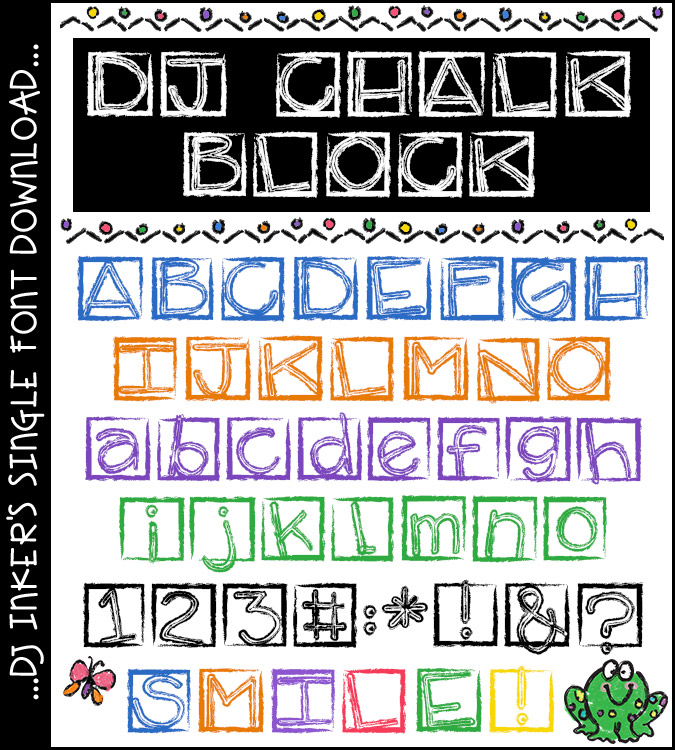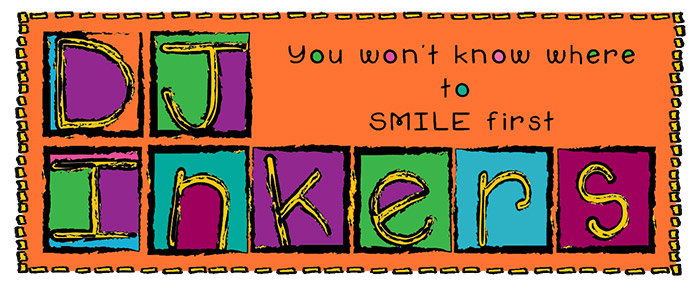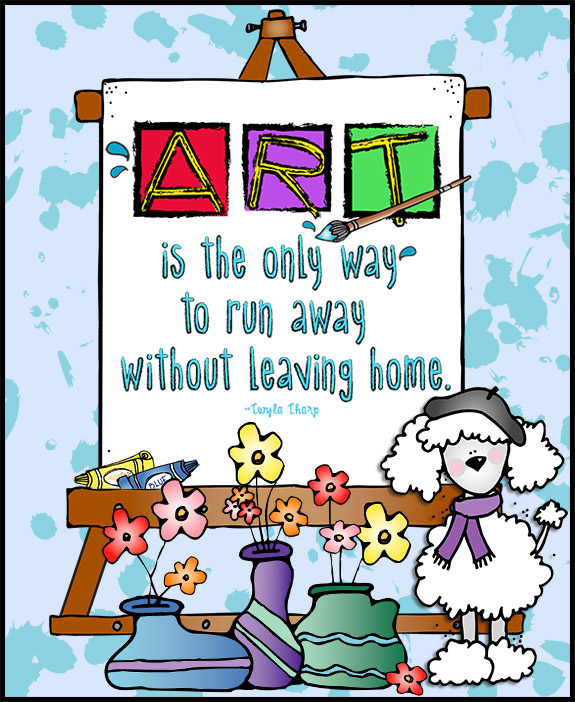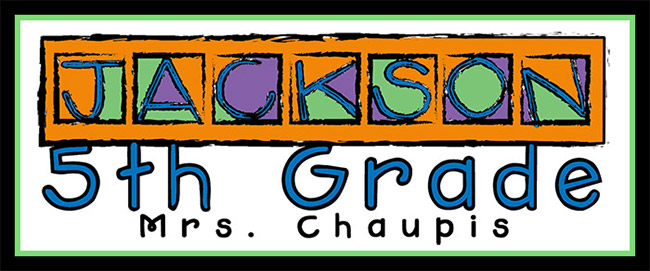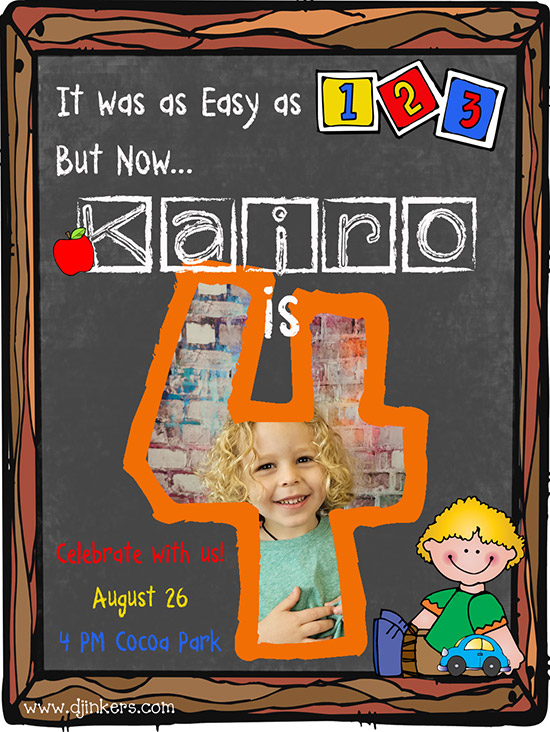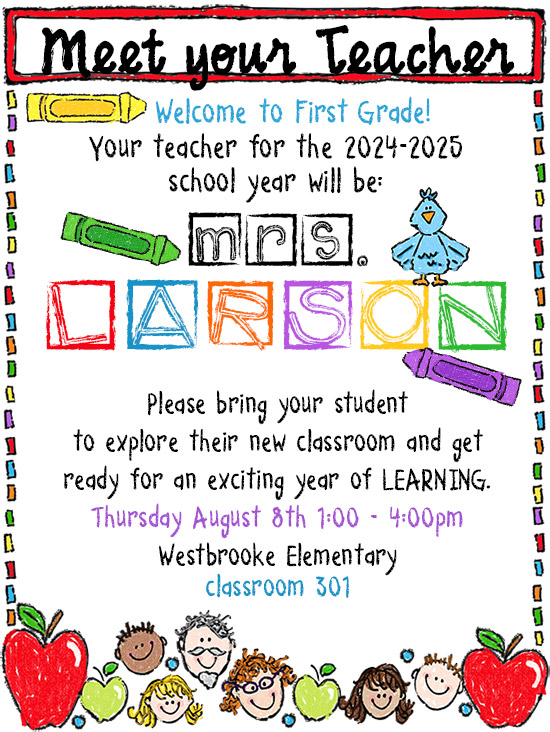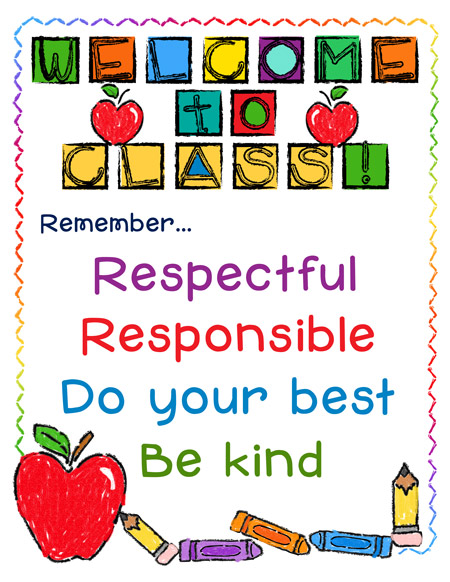
DJ Chalk Block Font Download
Our DJ Chalk Block font has lots of texture and an artsy back to school vibe. Perfect for a chalkboard classroom theme! Great for teachers, artists, headlines, decorations and classic schoolhouse style.